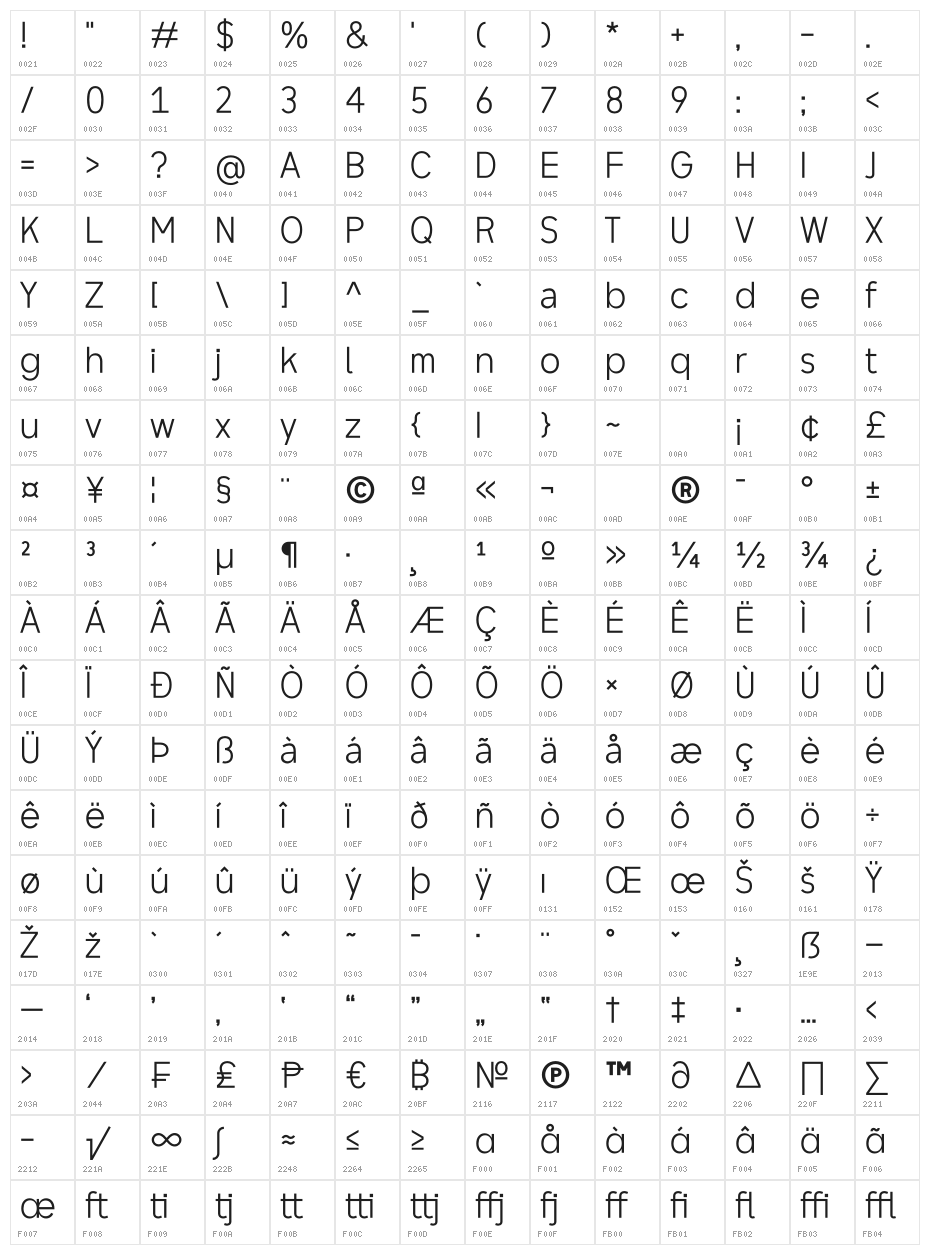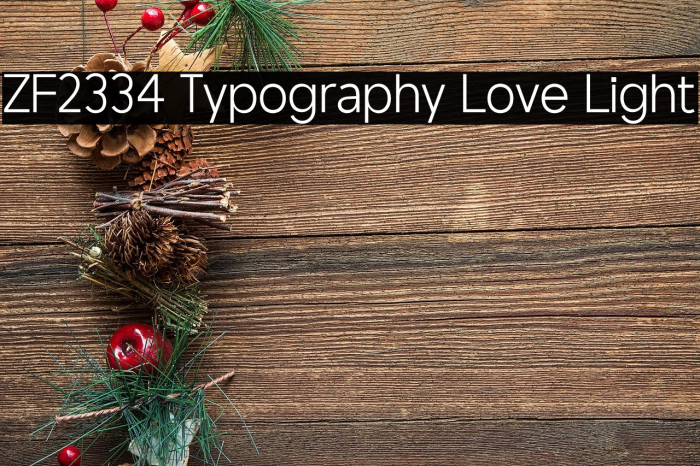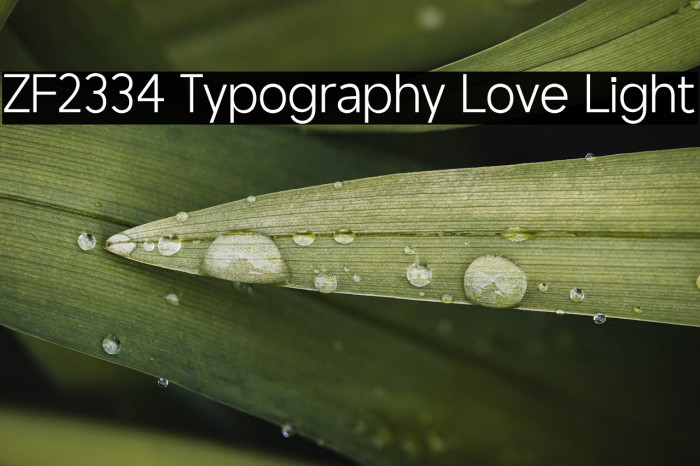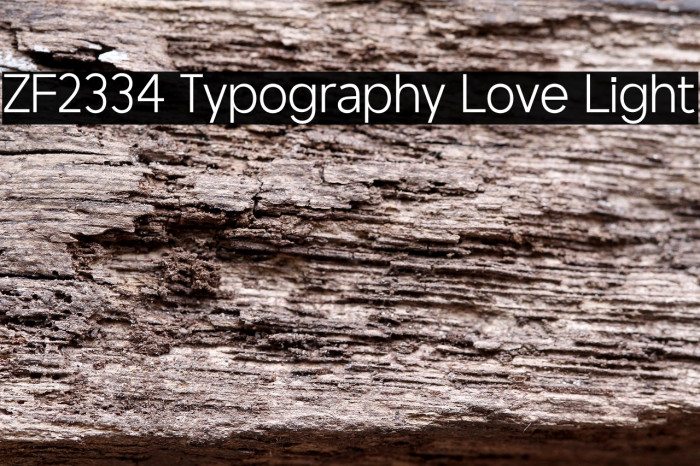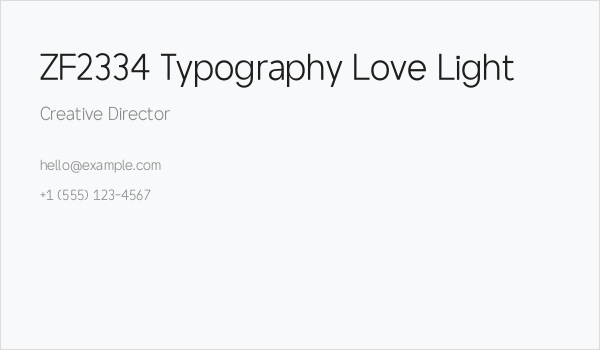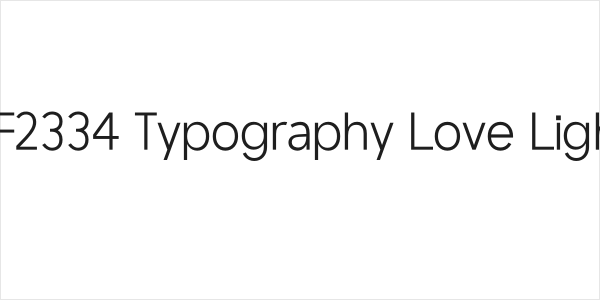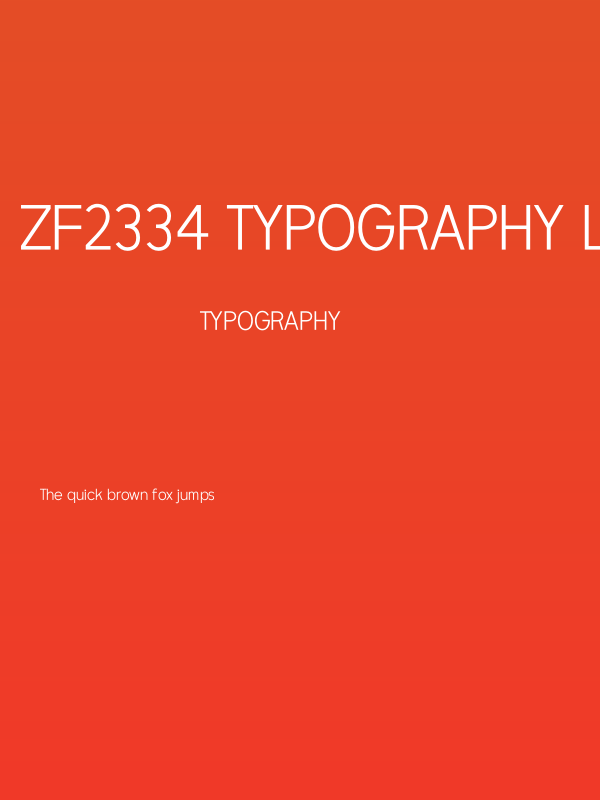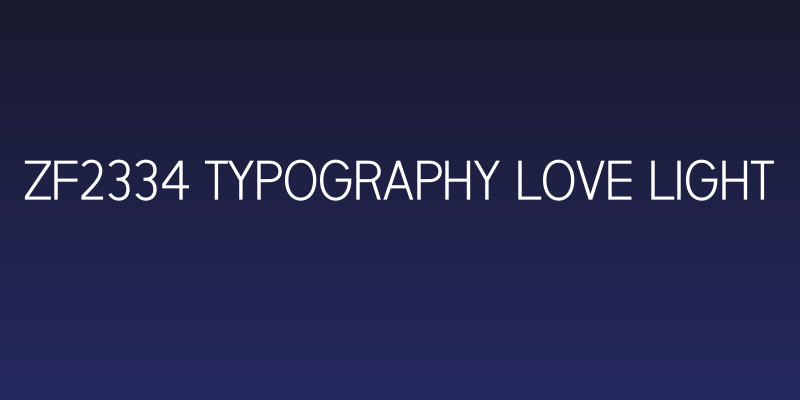
ZF2334 Typography Love Light Font
ZF2334 Typography Love Light Description
This font exhibits a clean and modern sans-serif style, characterized by its uniform stroke width and minimalistic design. The characters are well-proportioned, offering a harmonious and balanced appearance. The uppercase and lowercase letters maintain a consistent height ratio, providing a cohesive look. The numerals are clear and easy to read, while the special characters are distinct and well-integrated into the overall design. This font's simplicity and clarity make it highly versatile for various applications.
| Proposed Projects | Ideal for branding, web design, corporate materials, and editorial layouts due to its clarity and modern appeal. |